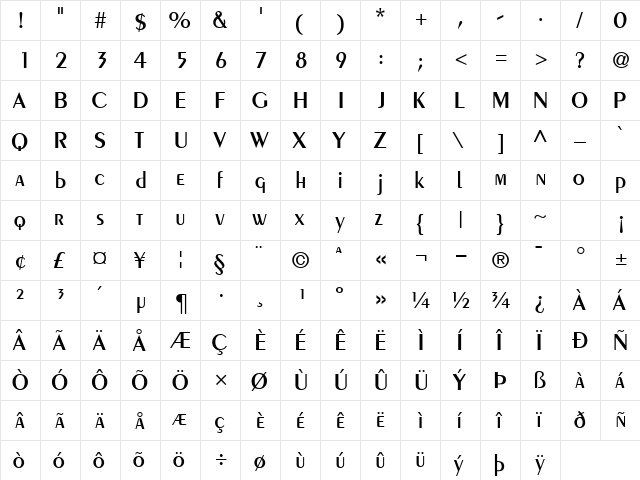
CremeSSK SemiBold
Design Context for CremeSSK Typeface
CremeSSK offers clean, dependable letterforms without strong stylistic allegiance, making it a practical choice for designers who need flexibility. The heavy weight commands attention and anchors typographic hierarchies.